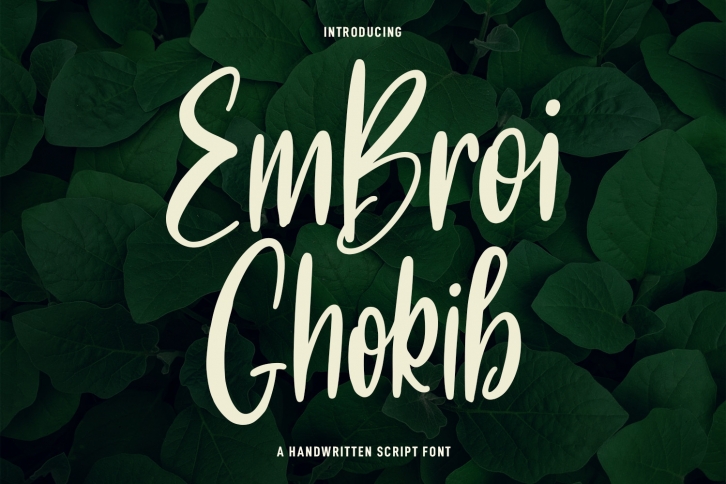
Embroi Ghokib is a fancy script font. It features medium contrast strokes, fun characters, ligatures and alternates. The shape of each character is very clean and contemporary.